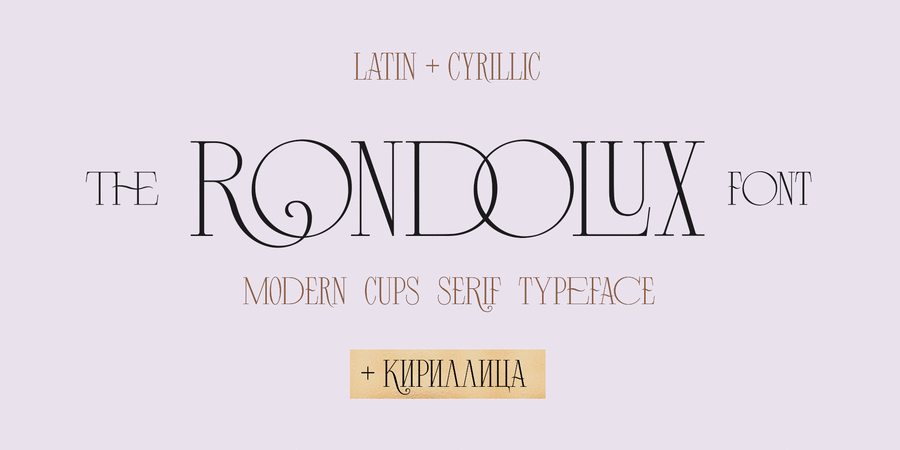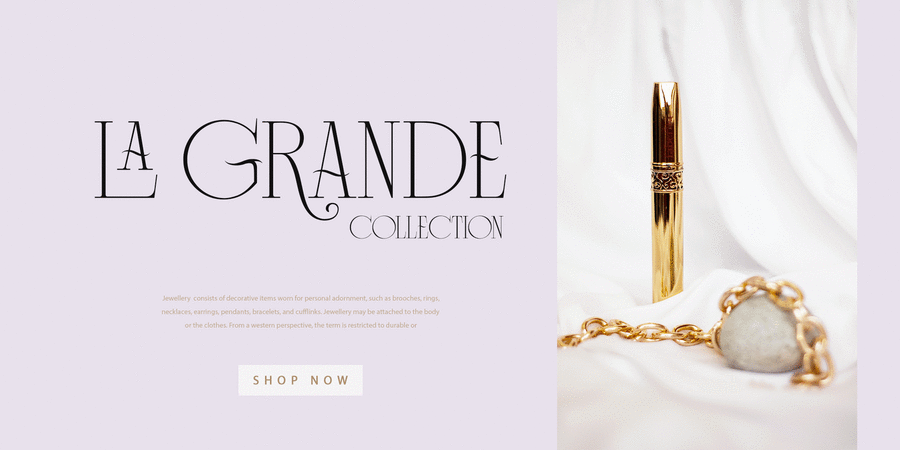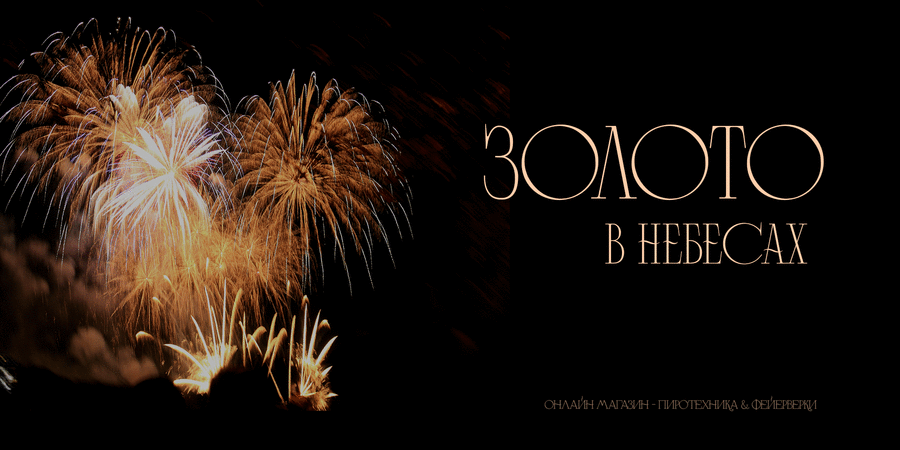
About Rondolux Cyrillic Serif Font is a narrow classy all-caps serif typeface with narrow lowercase, wide uppercase letters, and tons of ligatures. Perfect for gorgeous logos and titles, Rondolux Cyrillic Serif Font will pair beautifully with many fonts and work well with whatever project you're working on. You can choose to use narrow or wide glyphs to make your typography more varied.
Rondolux Latin part contains 38 ligatures which you can get by typing the number 1 after letters such as OC1 KO1 Lu1... Rondolux Cyrillic part also contains 27 ligatures.
The typeface was designed by Iryna Dvilyuk in 2022.